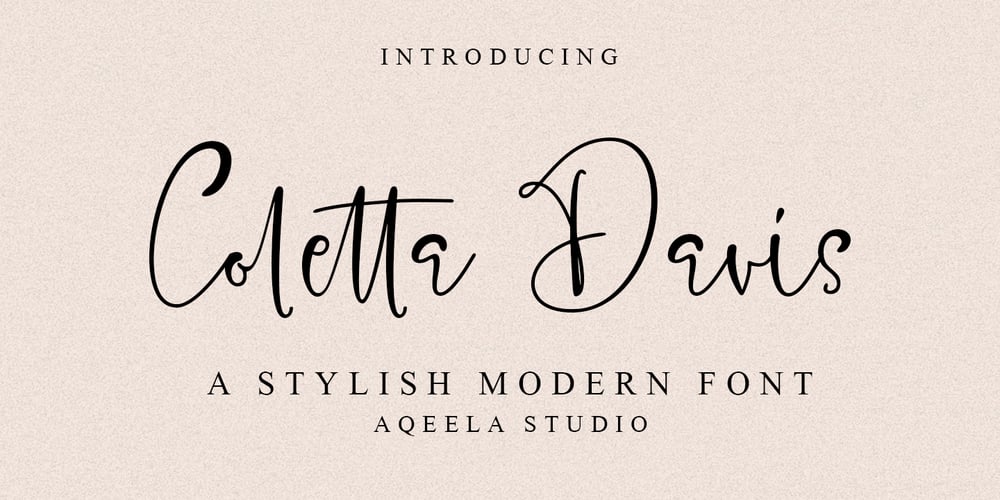
Coletta Davis Font Family was designed by Muhammad Nasir and published by Aqeela Studio. Coletta Davis contains 1 styles and family package options. Coletta Davis is an elegant and flowing handwritten font. This is coded with PUA which means you can access all glyphs and swashes easily! It features varied base lines, fine lines, beautiful flying machines and amazing alternatives. It maintains the influence of classy calligraphy while feeling contemporary and fresh. Fall in love with this font and take your project to the highest level!You need a program that supports OpenType features such as Adobe Illustrator CS, Adobe Indesign & CorelDraw X6-X7, Microsoft Word 2010 or later versions.Coletta Davis is coded with Unicode PUA, which allows full access to all additional characters without having special design software. Mac users can use the Font Book, and Windows users can use the Character Map to view and copy one of the additional characters to paste into your favorite text editor / application.Thank you and happy designing ๐ Enjoy!